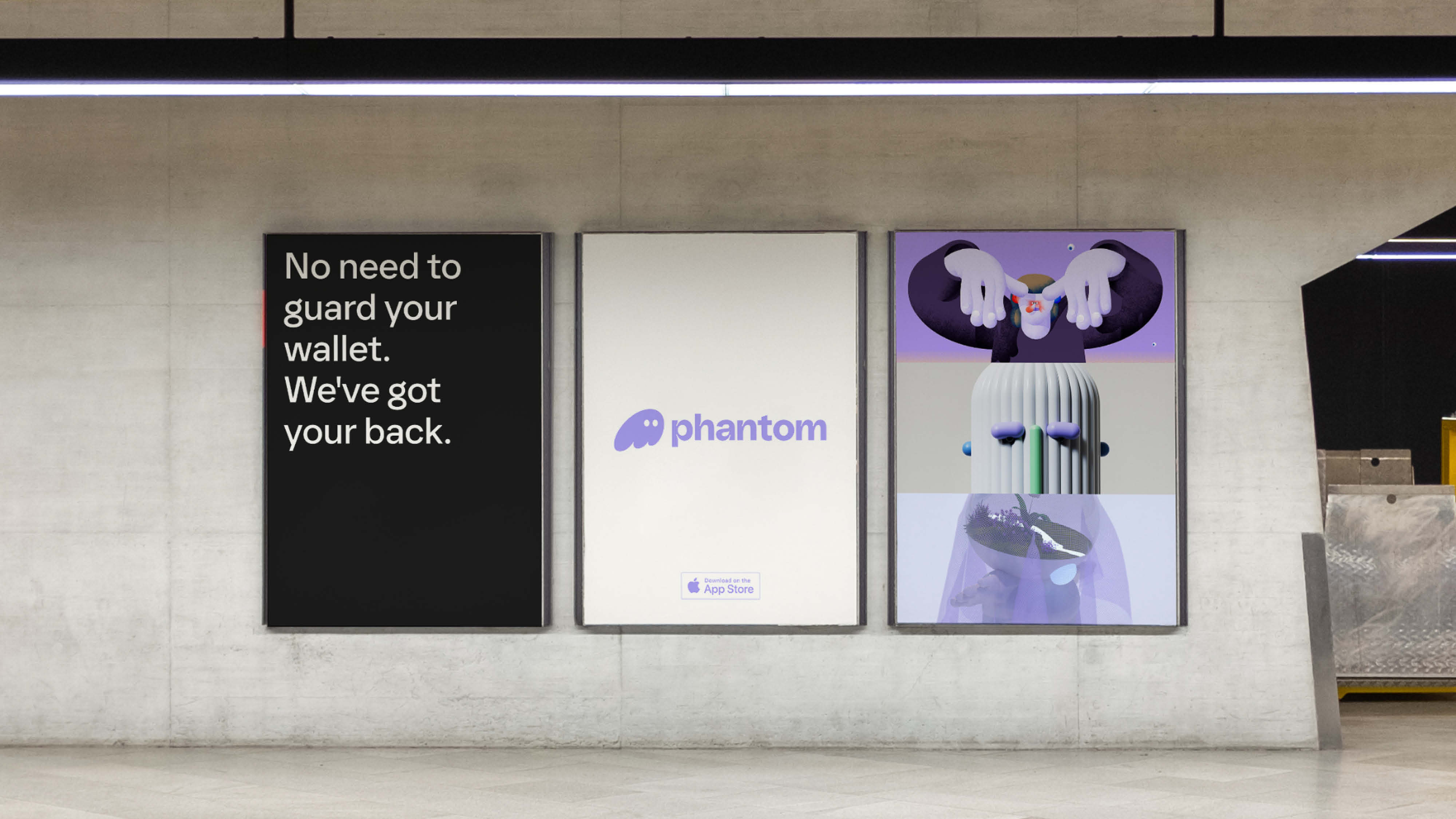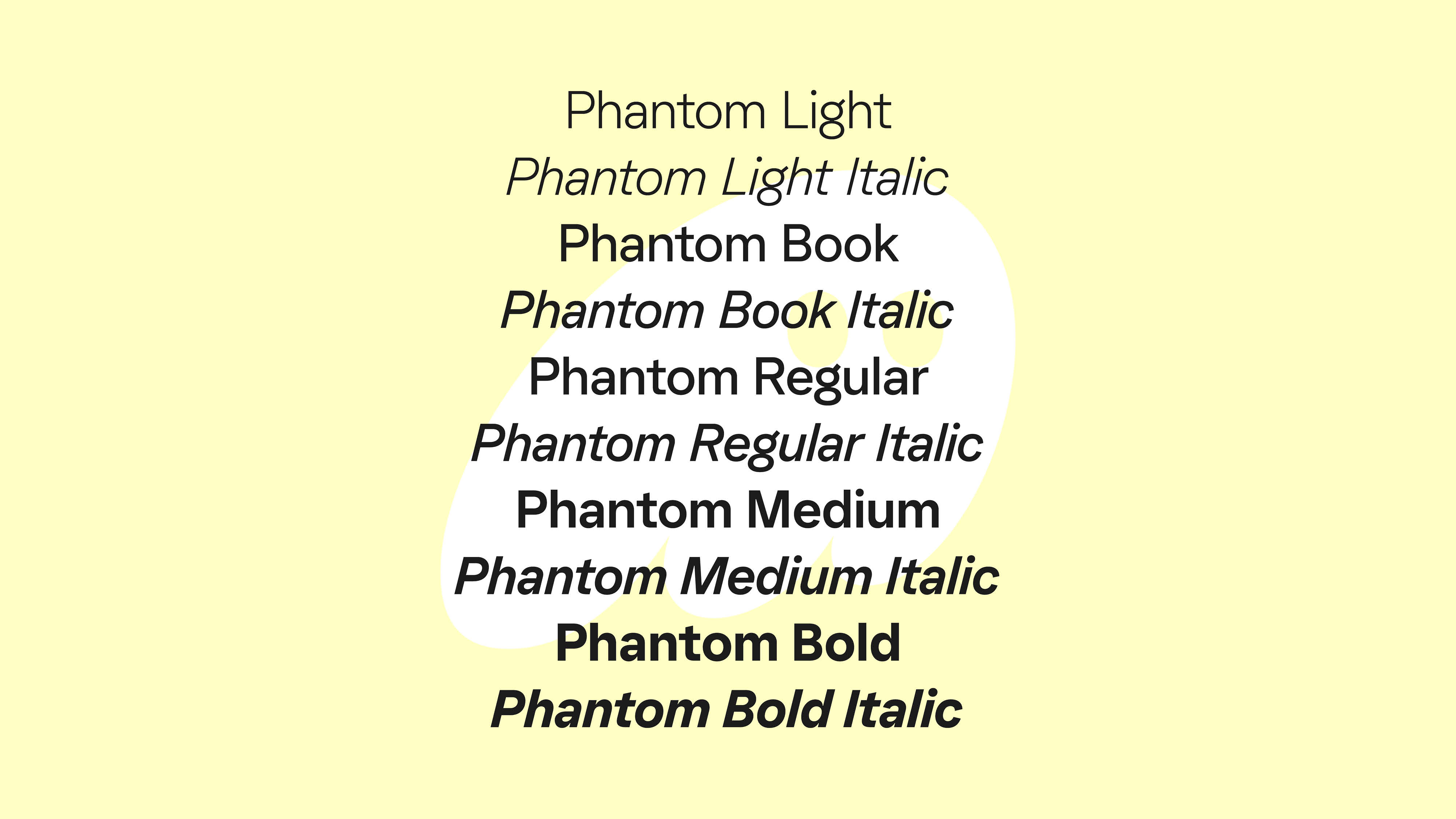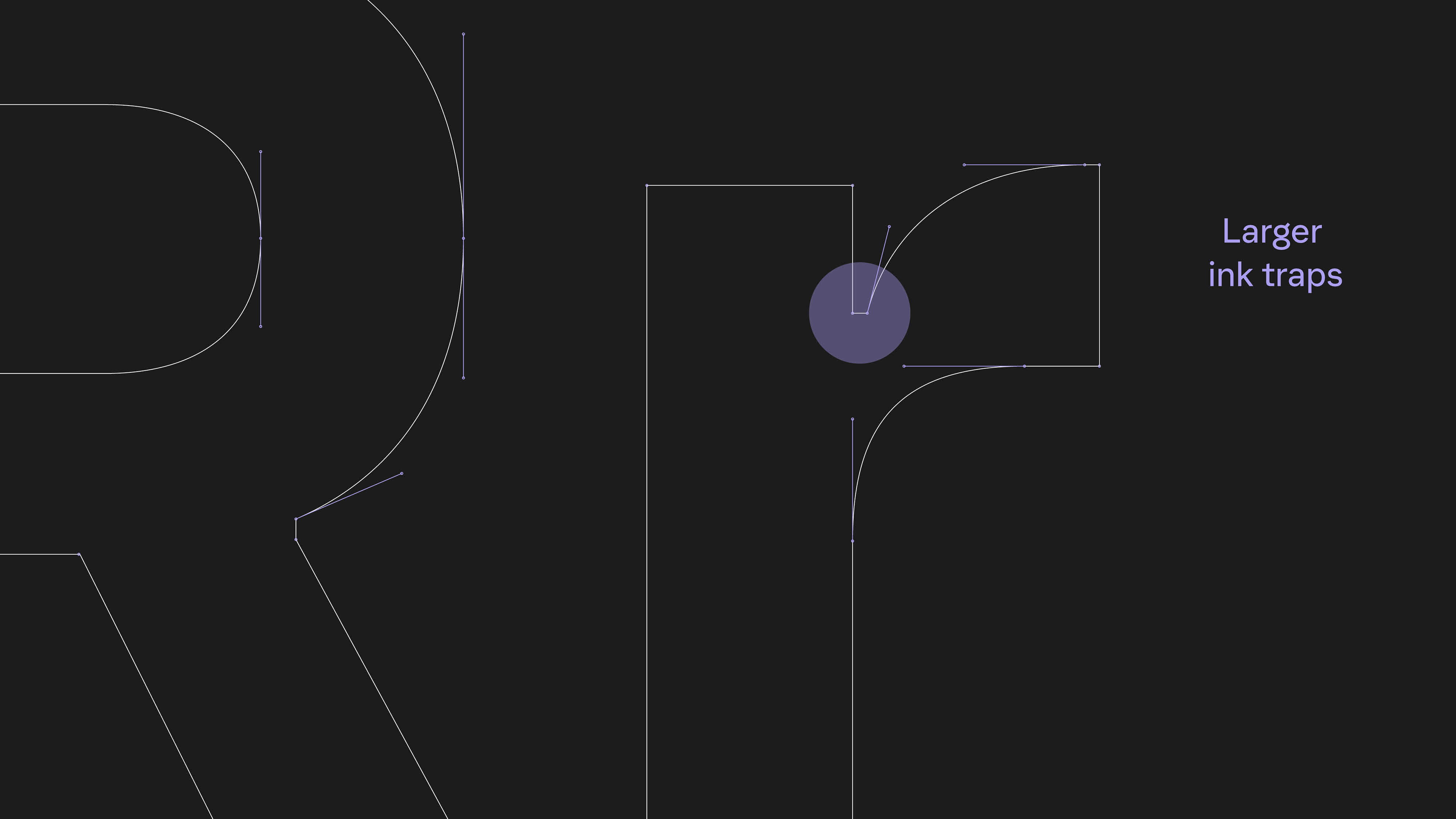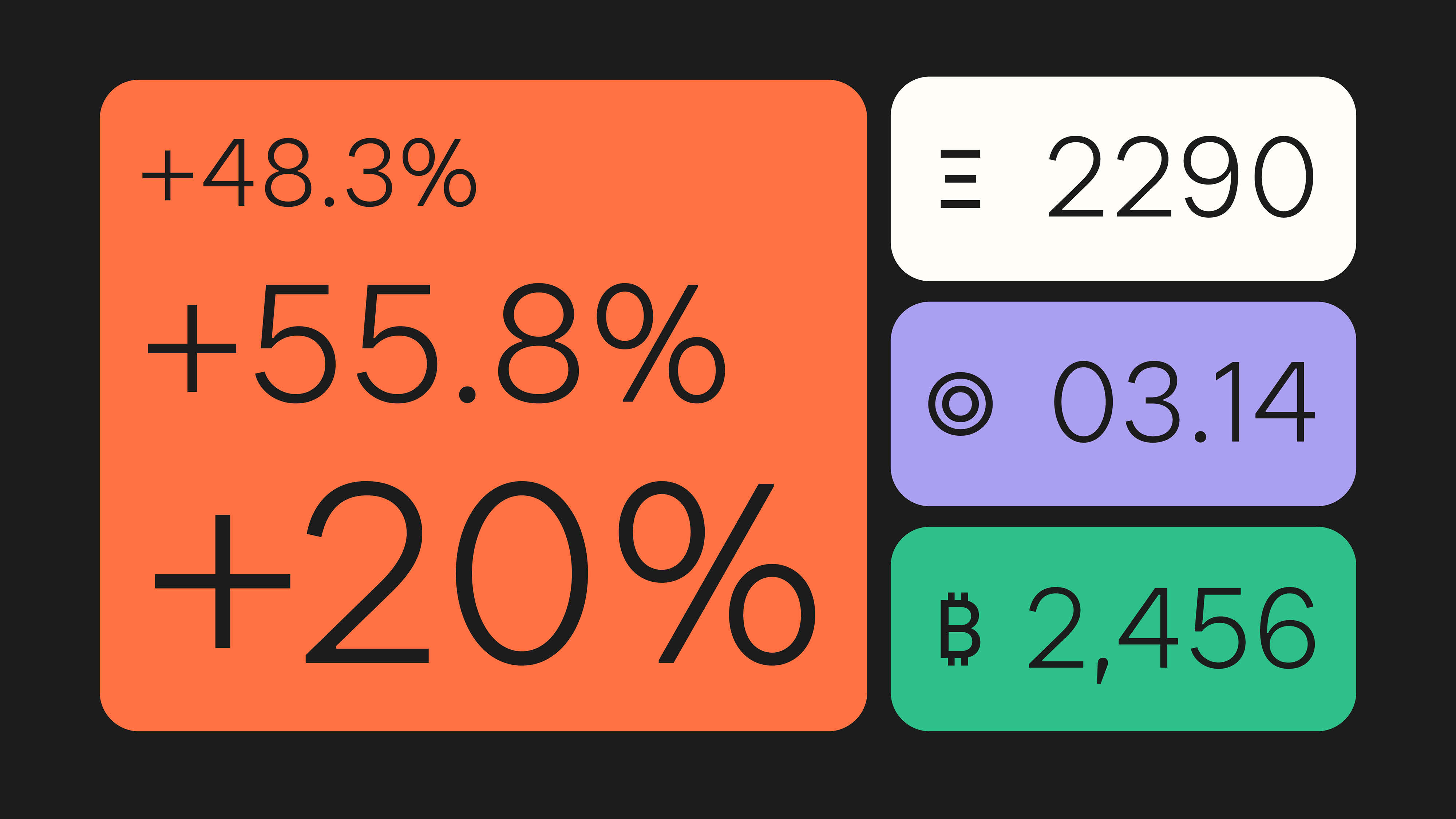
A F37 Zagma modification, built to enhance the clean, confident, and expressive voice of crypto wallet Phantom.
Launched in 2021, Phantom has been making crypto simple since its inception. Built by a group of engineers, designers, and former founders, their ambition was to help everyone freely and confidently participate in a new digital economy. Today, Phantom boasts 3+ million users.
Phantom’s brand brought a fresh look into the web3 sphere. The new logo and visual identity were brimming with design DNA to work with. The wordmark, in particular, featured deep ink-traps and angled terminals, providing valuable information.
With such a digital-first brand, the clean geometry and unexpected touches made F37 Zagma the ideal starting point. We crafted ink-traps that mirrored the wordmark without being too distracting. To keep with the clean aesthetic of Phantom, some of F37 Zagma’s other more audatious elements were also simplified; this included removing the tail on the ‘a’ and adding a horiztonal to the ‘4’.